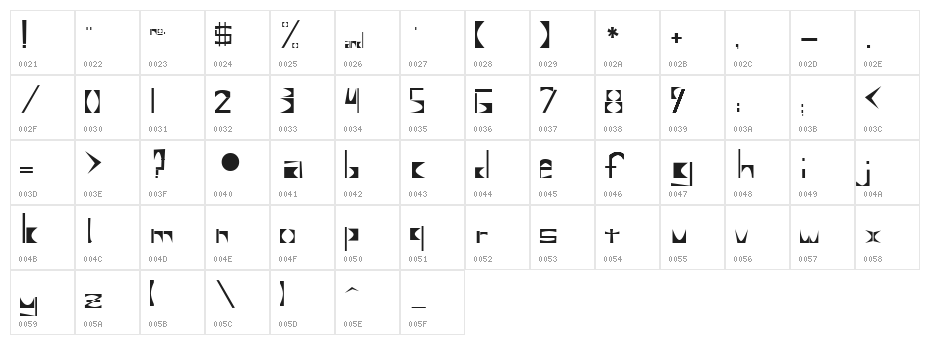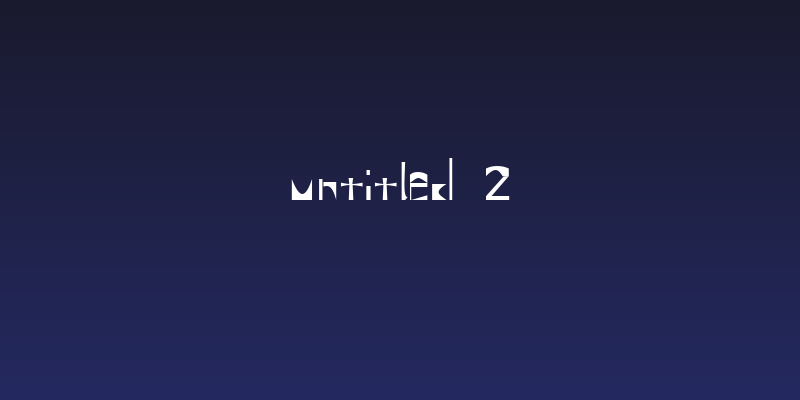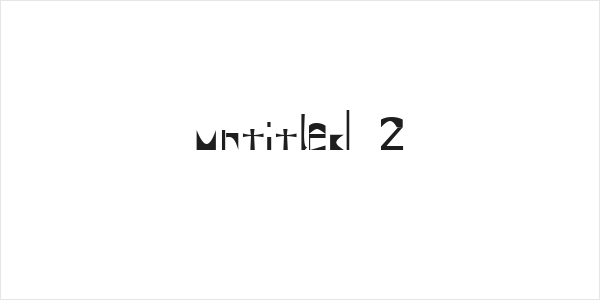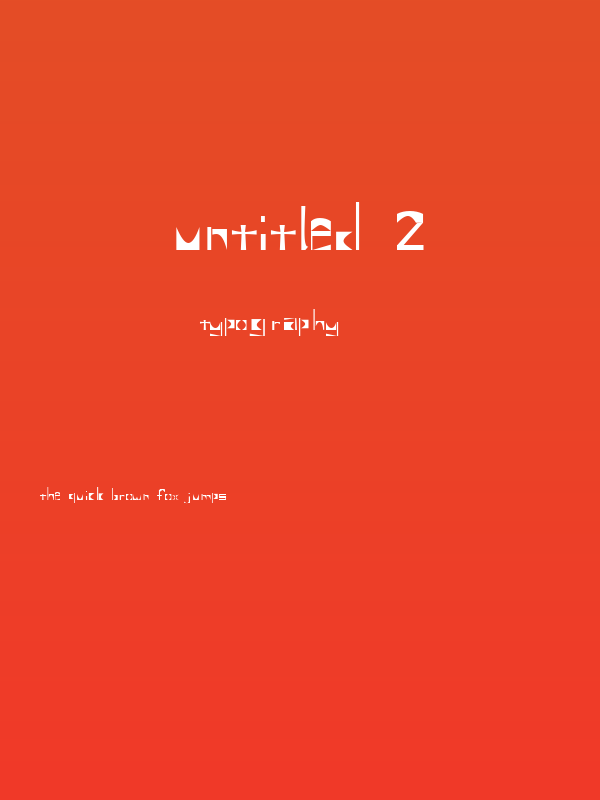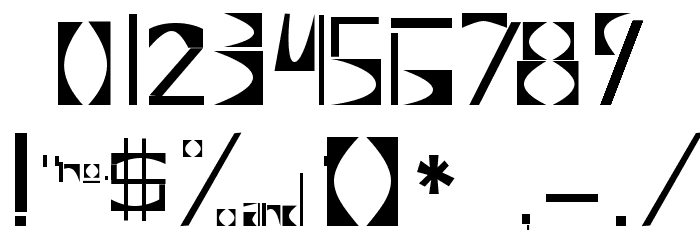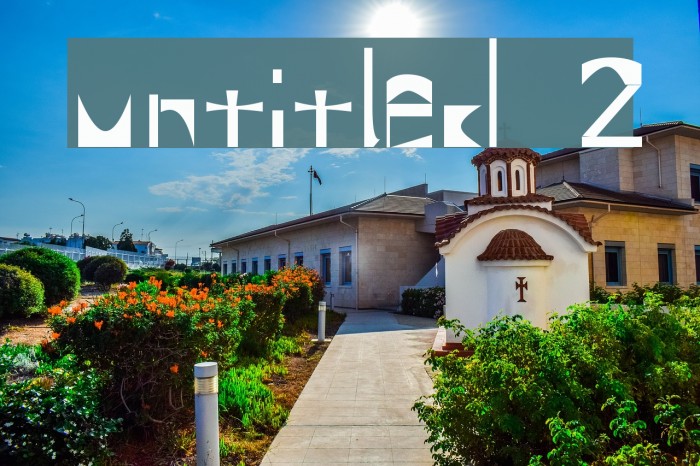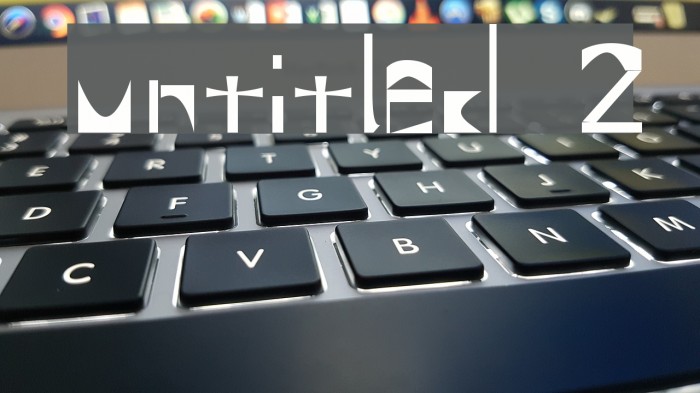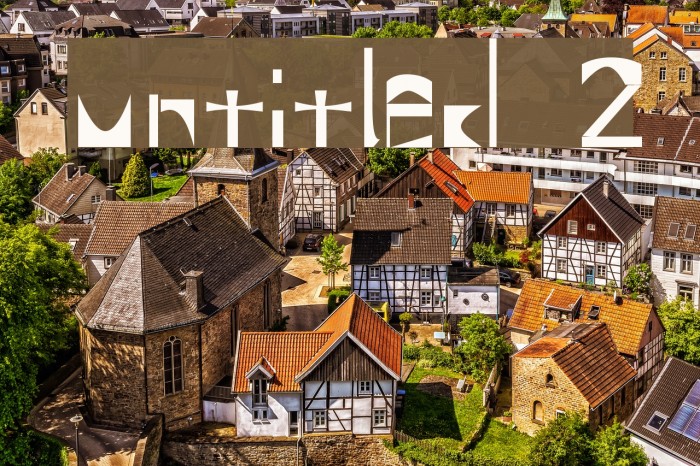
Untitled 2 Font
Untitled 2 Description
This font features a highly geometric and abstract design, characterized by sharp angles and bold shapes. The letters are constructed with a mix of solid blocks and negative space, creating a striking visual impact. The uppercase and lowercase letters share a consistent style, with a futuristic and avant-garde appearance. Numbers and special characters follow the same design principles, making the font cohesive and visually engaging. The unique style makes it stand out, suitable for creative and modern projects.
| Proposed Projects | Ideal for modern branding, futuristic posters, album covers, and digital artwork. |